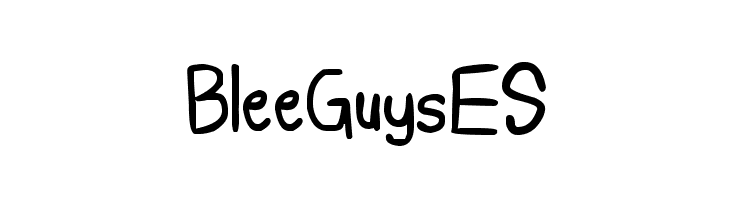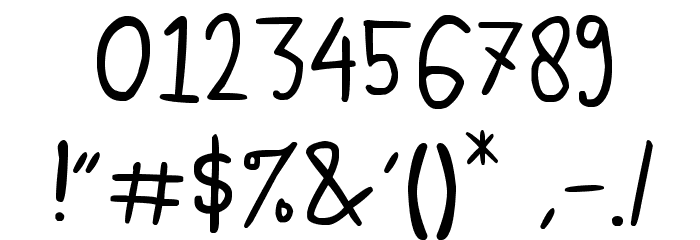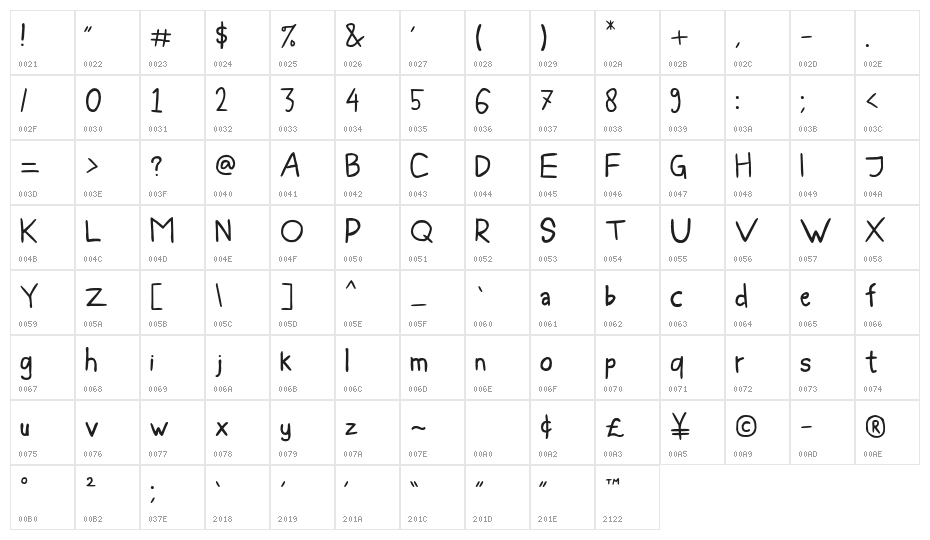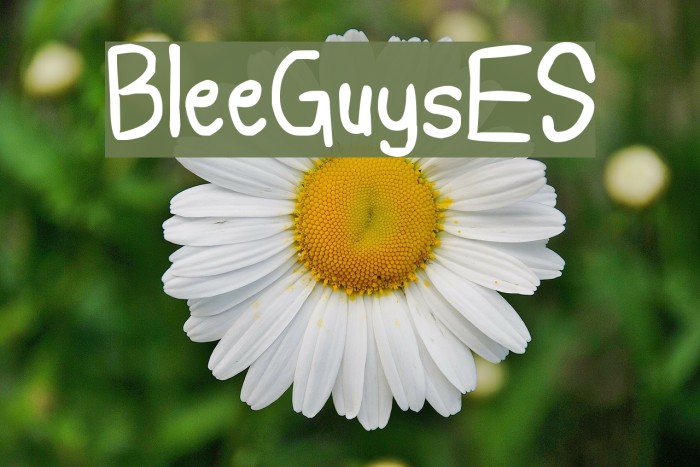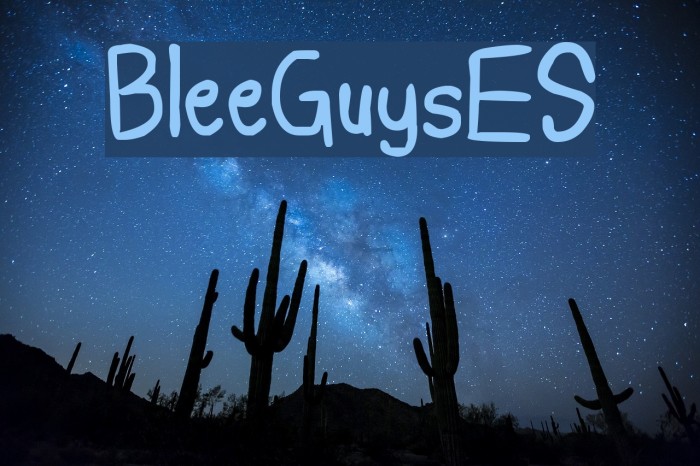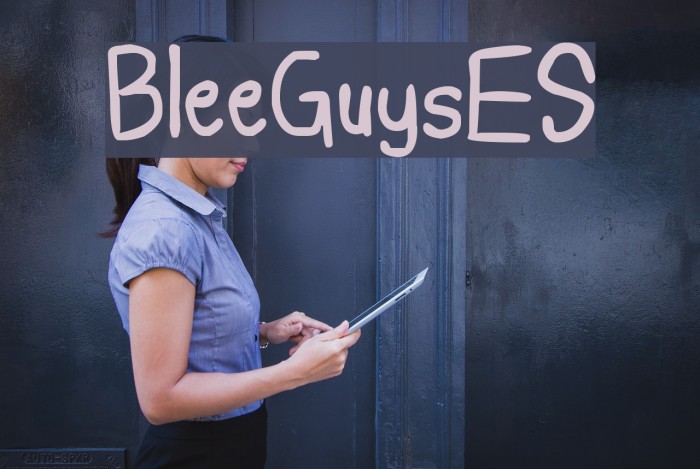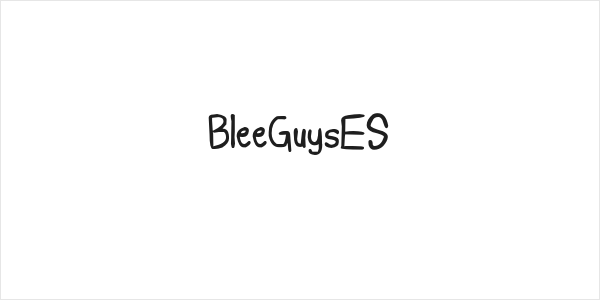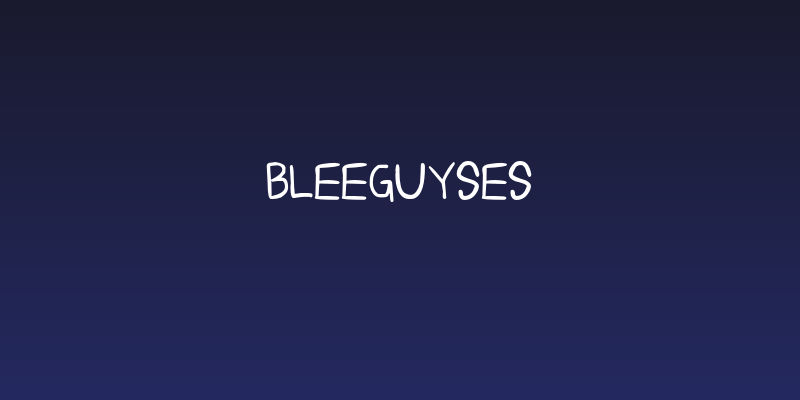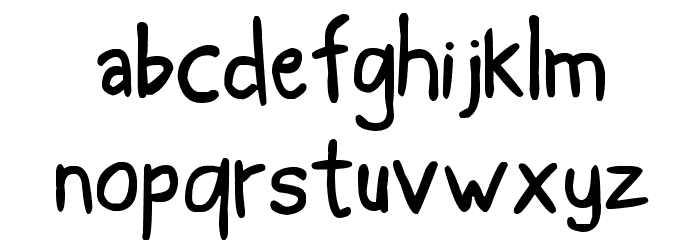
BleeGuysES Font
BleeGuysES Description
This playful and informal font features a handwritten style with a casual, friendly appearance. The letters are slightly uneven, adding a touch of whimsy and personality. The strokes are consistent in width, giving it a uniform look despite its informal nature. The characters are well-spaced, ensuring readability while maintaining a relaxed vibe. This font is perfect for projects that require a personal touch, such as greeting cards, invitations, or children's books. Its unique style makes it stand out, making it ideal for creative and artistic endeavors.